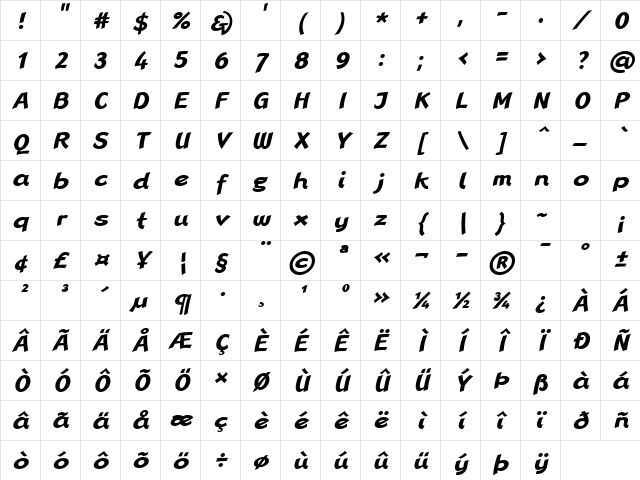
LTRana Regular BoldItalic
Complete LTRana Regular BoldItalic glyph index. Displaying only characters natively supported by LTRana Regular BoldItalic font.
Design Context for LTRana Regular
LTRana Regular is a composed and adaptable typeface that performs quietly and consistently across a wide range of design contexts. The slanted form adds forward momentum and visual energy. Its bold stroke weight gives it real presence on the page.
Pro Tip: Use LTRana Regular for emphasis, pull quotes, and subheadings where its slanted energy can add rhythm to the layout.